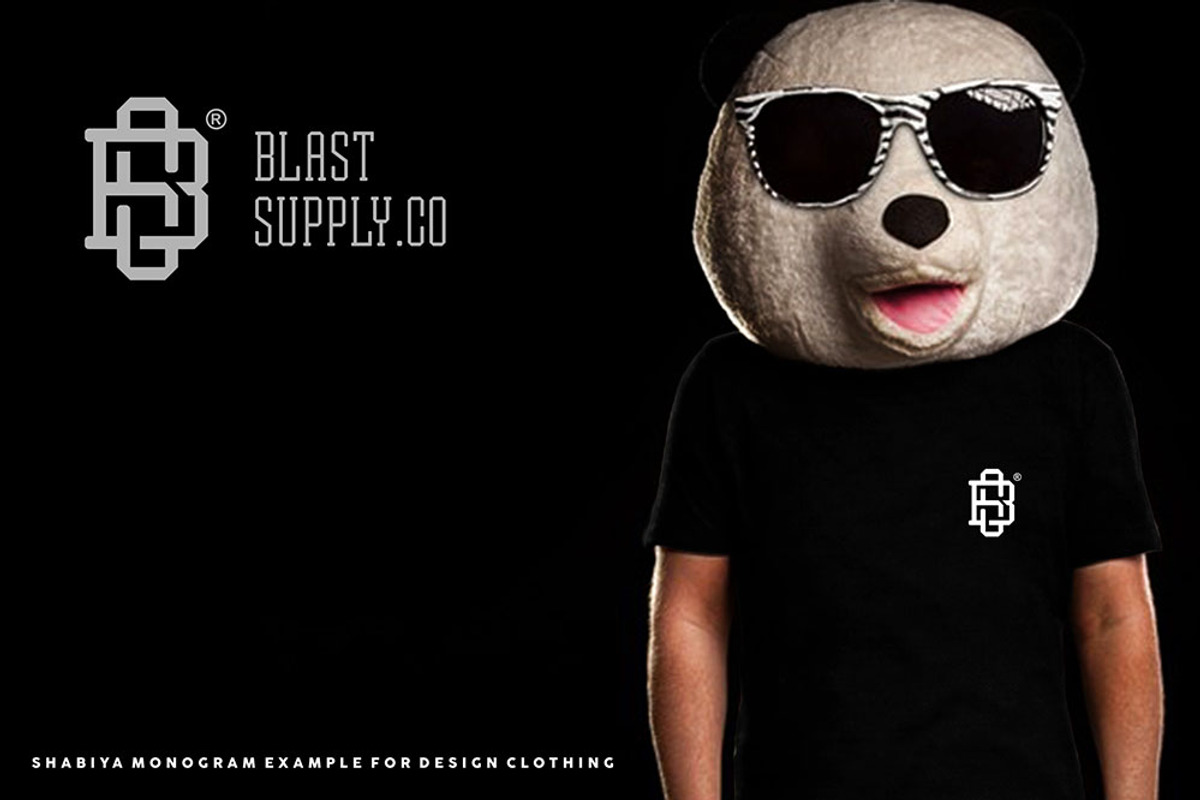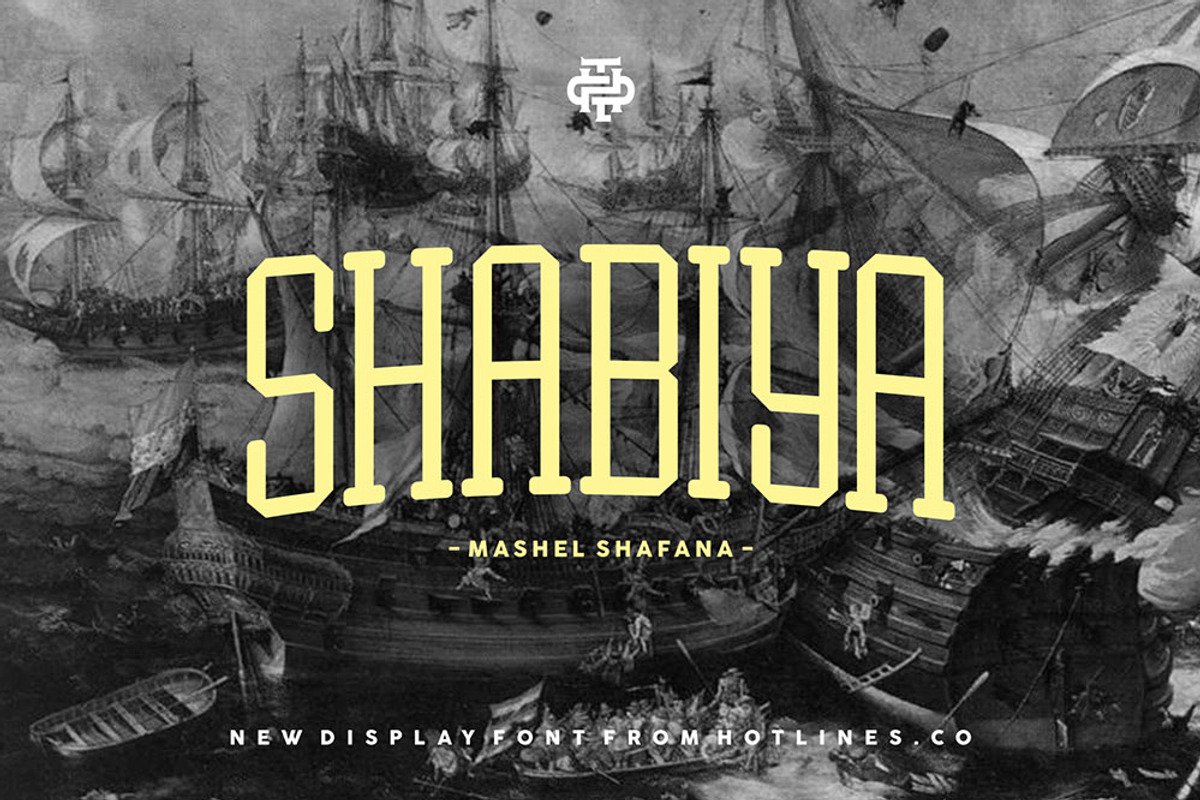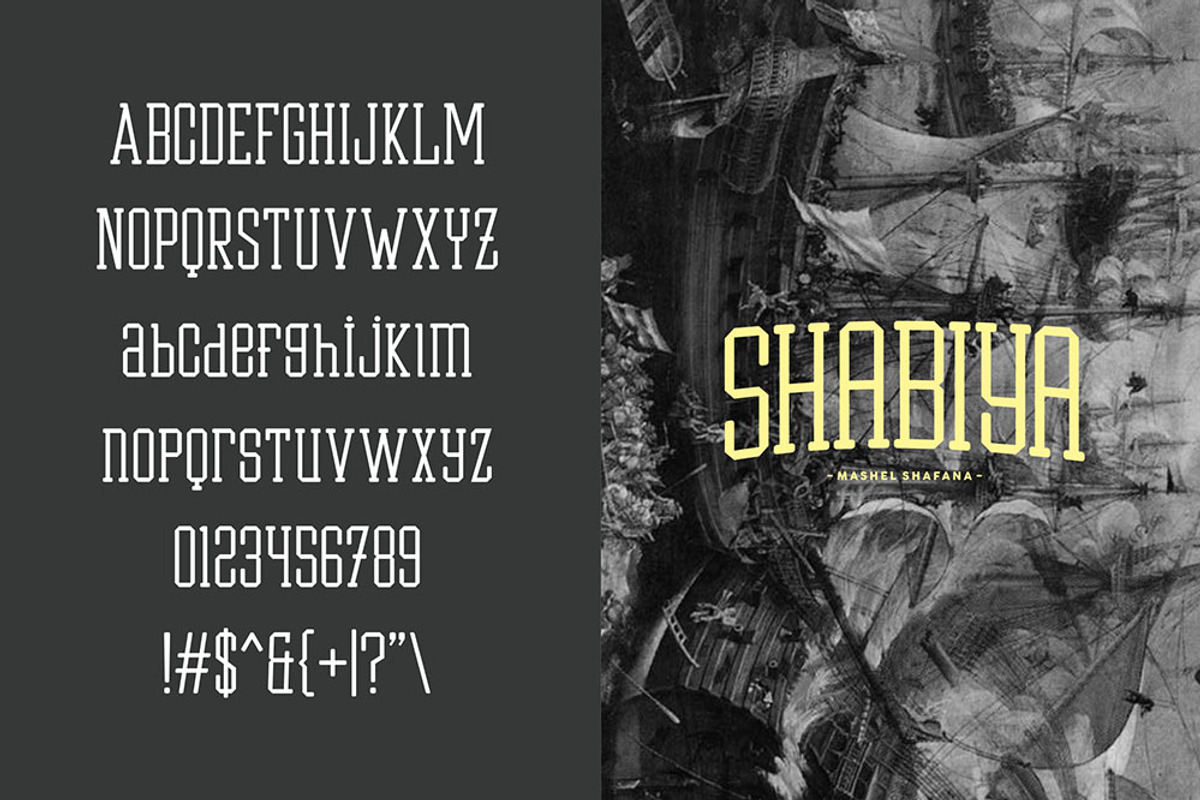
Shabiya typeface
Shabiya typeface is new font from Hotlines.co, elegant feel character set. To create the beautiful combination, just mix the uppercase and lowercase then mix with the alternative glyphs.Shabiya typeface insfire from sport club
Shabiya typeface is suitable font for many creative products & designs.
Why Shabiya typeface is worth a look
Shabiya typeface by HTLNS.co fits naturally into Branding, posters, packaging, typography.